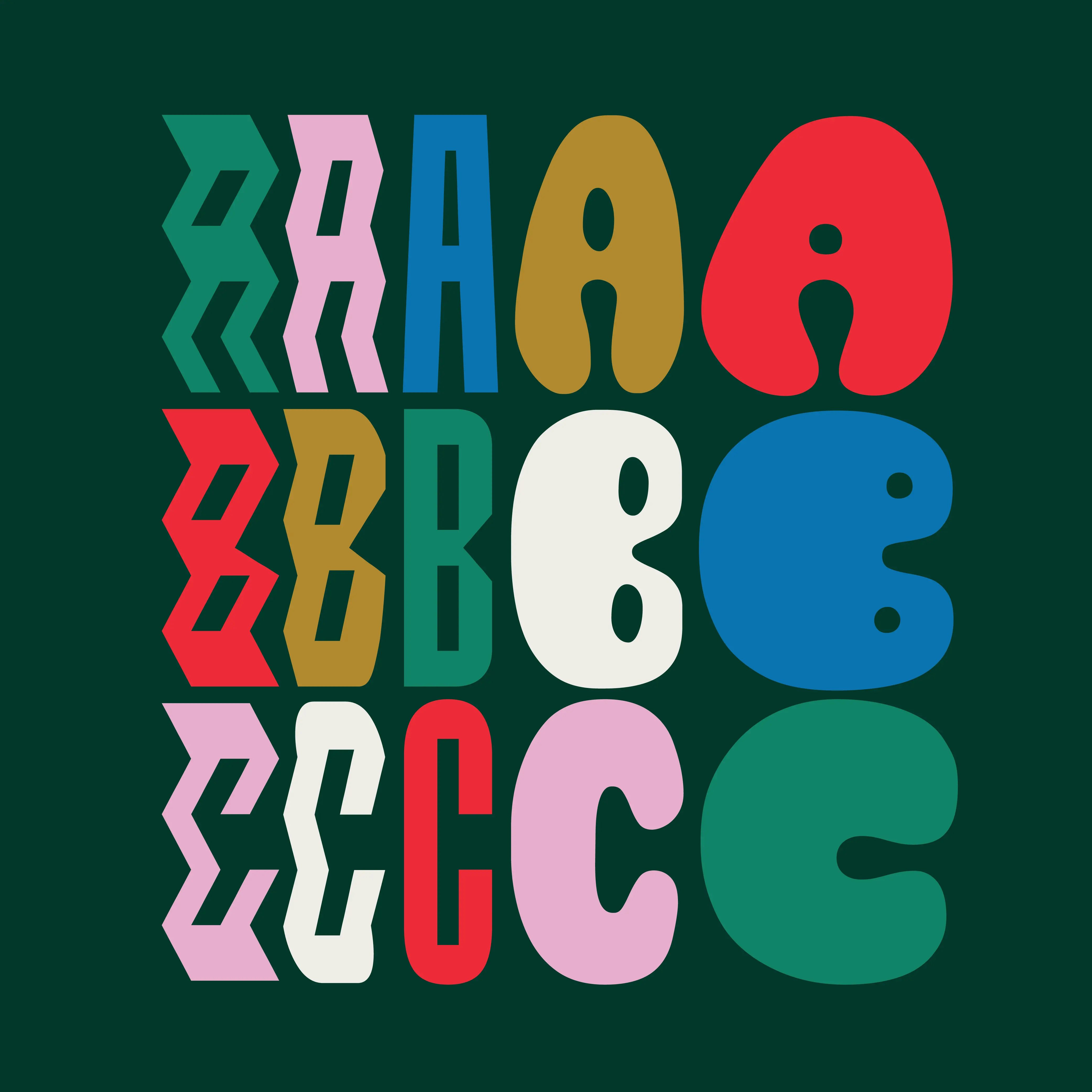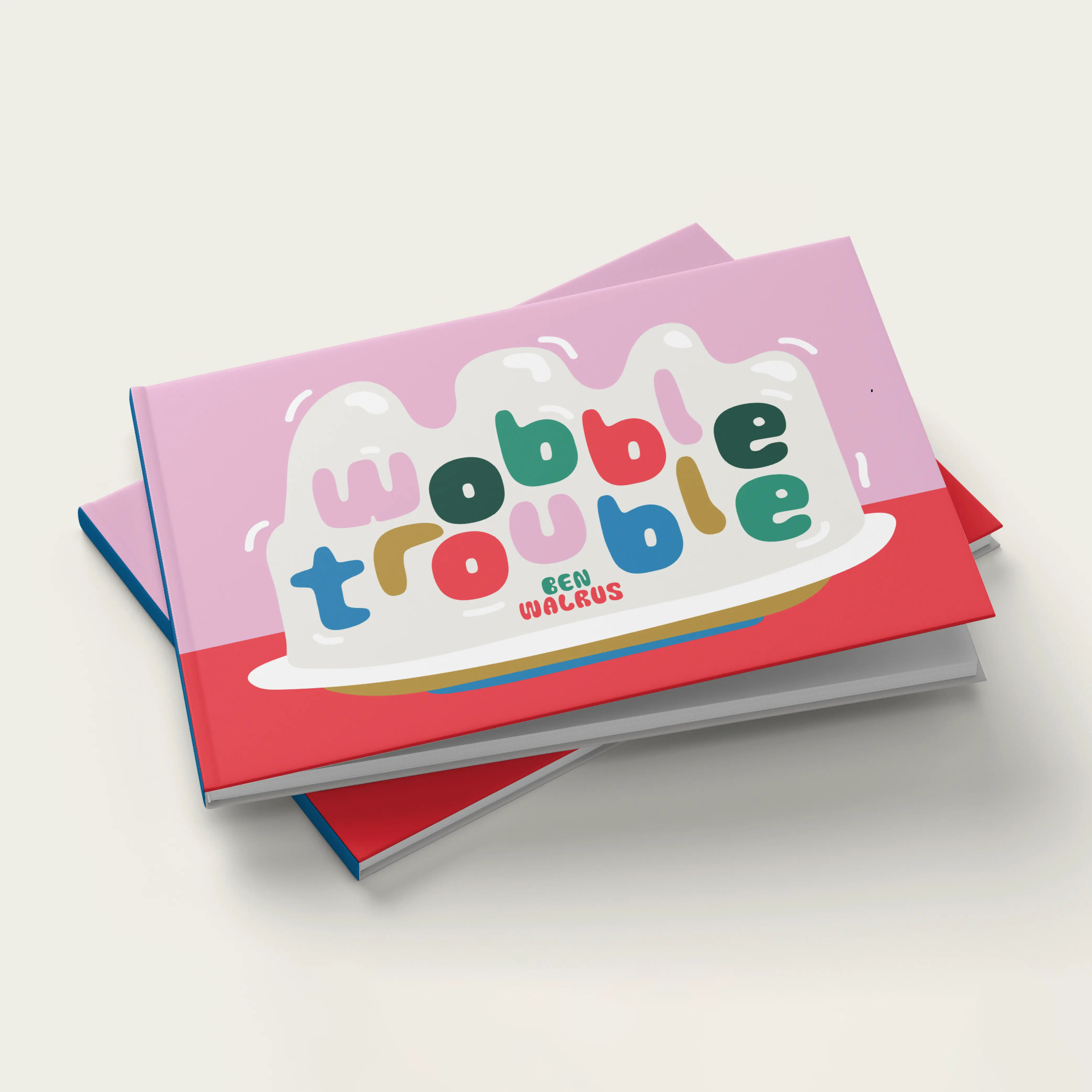
Brinca Variable Font
Brinca is a full-spectrum variable font by In-House, shifting from sharp pleats to neutral sans to bouncy letters for expressive brand systems.
Framed poster with Brinca OK letterforms on a tiled wall.
Brinca – Variable Font
Brinca is an intrepid ‘full spectrum’ typeface with emotional range and a dynamic heart. Morphing sharp tight pleats that relax into office ready neutral sans, then plump into joyful bouncy letters with mesmerizing fluency, Brinca is ready to adapt to a wide variety of expressive needs.
Brinca zigzag glyph specimen in multicolor rows.
Brinca alphabet and numerals specimen in tall display letters.
Brinca alphabet and numerals specimen in rounded bouncy letters.
Framed Brinca poster with repeated Close text in colorful type.
Framed Brinca poster reading Up Yourself with playful letters.
Named after its jumping extremes of the type’s styles; from coiled spring to stuffed and bouncy, Brinca is also a leap into new possibilities for display type design.
Because of its chameleon-like range of styles, Brinca is a versatile workhorse. It’s a great choice for brand identities ready to embrace expressive range, and it’s perfect for fine-tuned packaging, events promotions, merch, product lines, and much more. WIth its very wide spectrum of options, It’s a single typeface that can be used to design a library’s worth of book covers. (We put it to the test!)
Brinca specimen showing repeated variable zigzag letterforms.
Brinca word specimen with the name repeated in multiple orientations.
Brinca specimen spelling zoom in rounded colorful letters.
Framed Brinca poster with rows of zigzag letterforms.
Book cover mockup with Brinca zigzag type and a red illustration.
Brinca breakfast booklet on a table with oranges and a drink.
Stacked Brinca booklet covers with dark green geometric graphics.
Small Brinca booklet with colorful rounded letterforms.
Square booklet cover reading Big Fat Book in striped Brinca type.
Brinca specimen showing A, B, and C in multiple variable styles.
Brinca specimen reading 2024 in rounded colorful numerals.
Black T-shirt over a railing printed with Brinca letterforms.
Beverage bottle label using Brinca zigzag typography.
Silver snack bag with Brinca lettering and colorful type.
Orange dish printed with Brinca bubble lettering.
Red packet mockup with Brinca zigzag lettering.
Dropper bottle label using condensed Brinca typography.
Brinca specimen reading Zigzag and Bouncy in multicolor type.
Hanging package label with Brinca zigzag lettering.
Wine bottle label with Brinca typography in blue and red.
Two takeaway cups printed with Brinca zigzag and rounded lettering.
Pink beanie with a folded label using Brinca lettering.
Person holding a vertical Brinca poster in front of their face.
Red poster with black chairs and Brinca zigzag lettering.